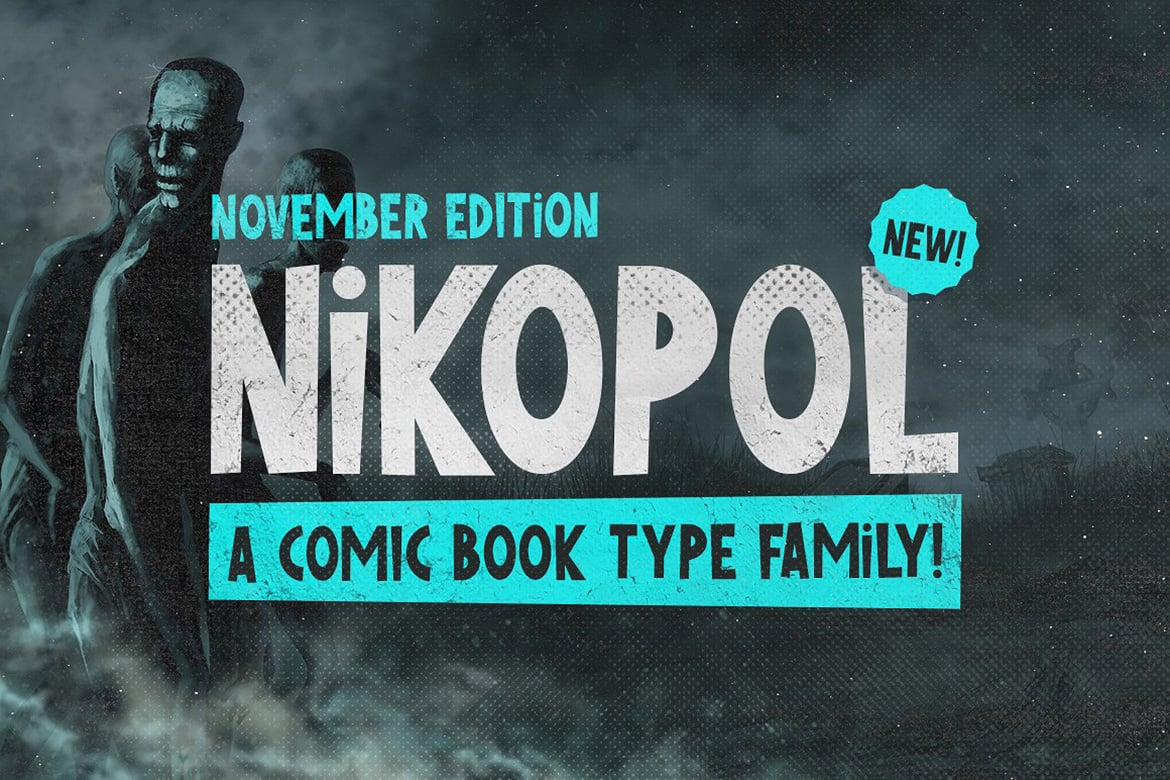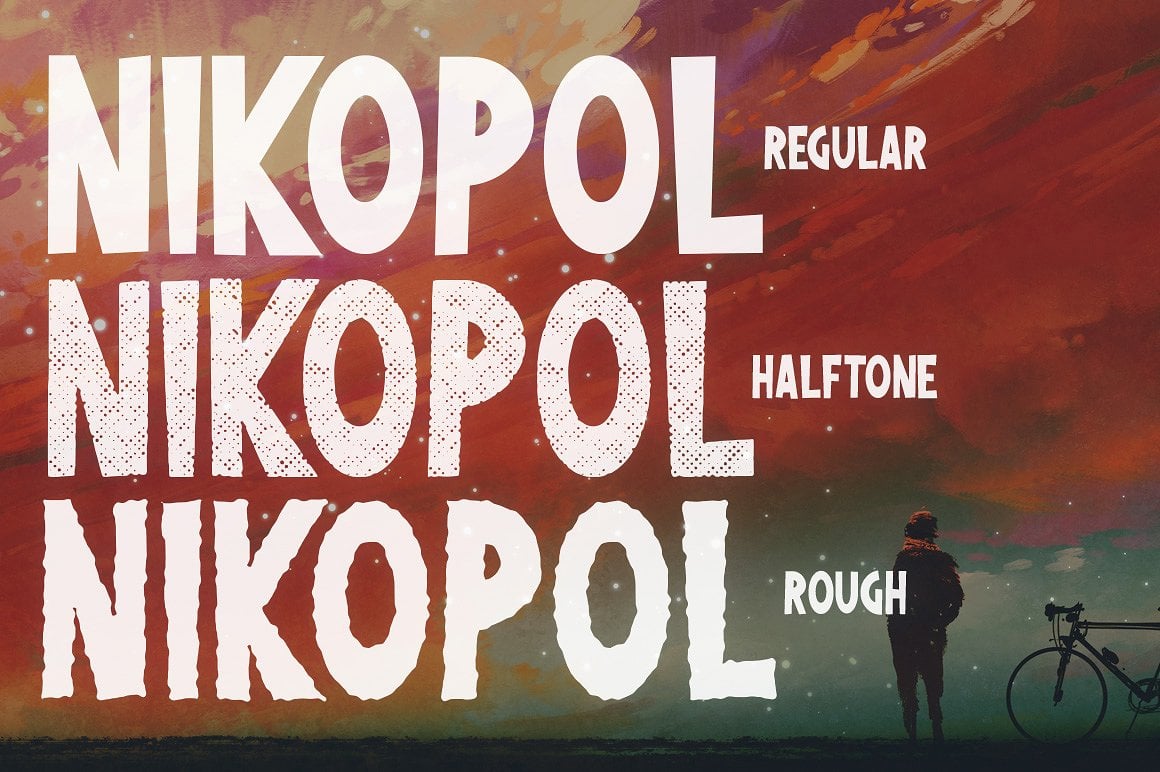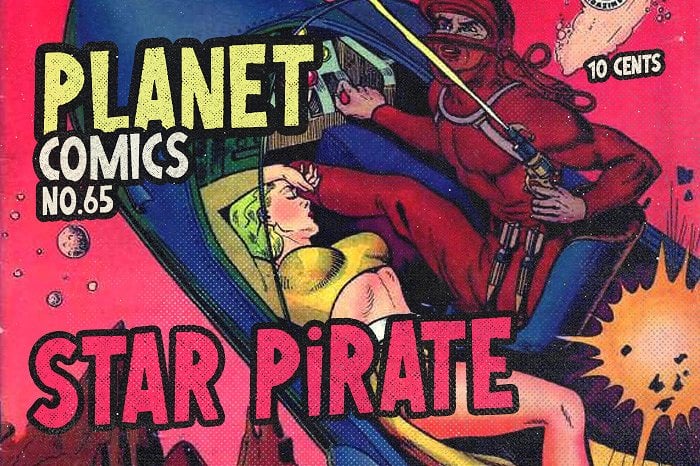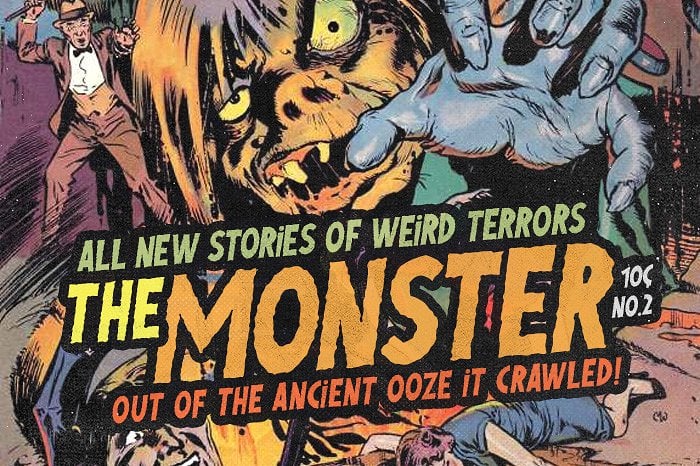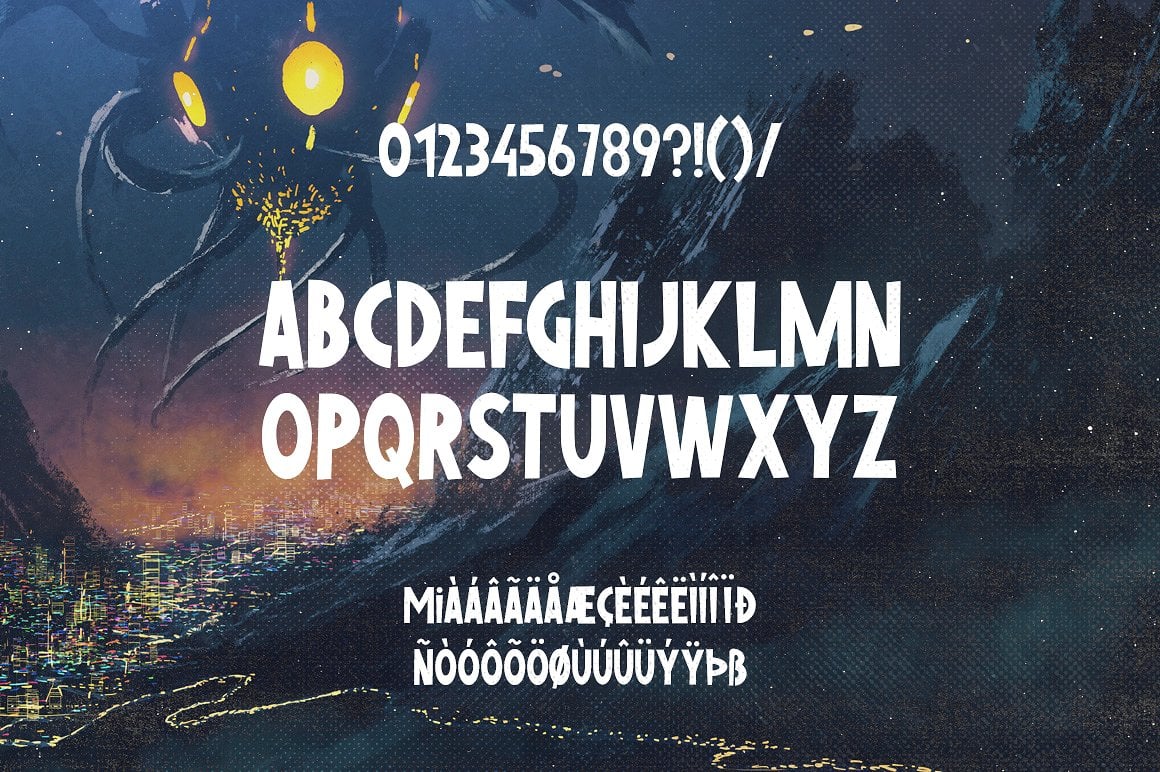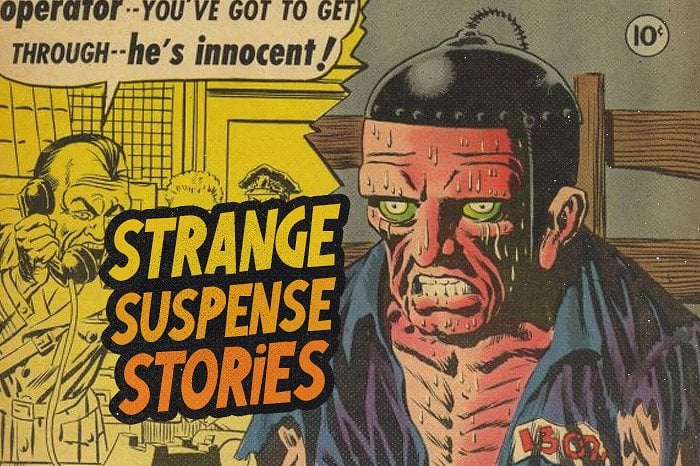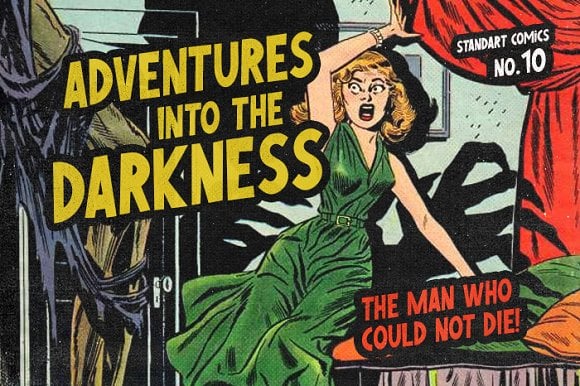
Nikopol Typeface
Nikopol is a comic book themed font family. It includes uppercase multilingual letters, punctuation and numbers.
It comes in regular, rough and halftone styles. The halftone version has a great authentic vintage comic book texture and the rough version has a monstery and spooky vibe. The letters “i” and “m” also have alternate versions which you can toggle with caps lock.